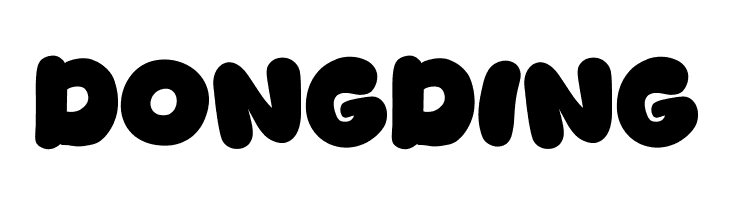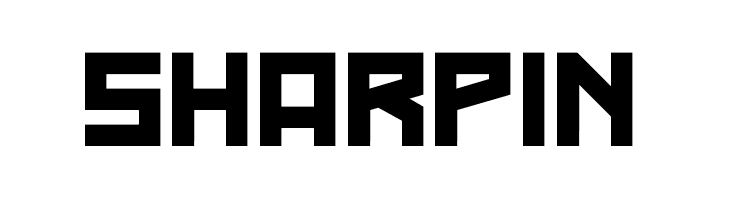
A bold, modern font with unique cuts and strong presence.
A geometric, technical font with clean lines and sharp angles, ideal for architectural and technical designs.
A playful, comic-style handwritten font with smooth, rounded strokes.
An artistic font combining skeletal elements with roses for a bold, decorative look.
A bold, decorative font with a cow pattern design.
An elegant script font with intricate swirls and decorative flourishes.
A distressed serif font with a vintage, textured style.
An elegant script font with fluid, cursive strokes and high contrast.
An elegant and flowing script font with refined cursive letters.
A charming and elegant script font with playful, whimsical curves.
A delicate, flowing script font with thin, graceful lines.
A flowing, cursive script font with elegant, sweeping strokes.
A graceful and elegant script font with flowing, cursive letterforms.
A dynamic, expressive handwritten font with fluid strokes and varying widths.
An elegant script font with flowing lines and intricate swirls, perfect for sophisticated designs.
An elegant script font with flowing, decorative cursive letters.
A bold, dynamic font with unique, playful curves and strong presence.
An elegant script font with flowing, interconnected characters and intricate loops.
A lively, flowing script font with elegant cursive letterforms.
A modern, geometric sans-serif font with clean lines and balanced spacing.
A modern, condensed sans-serif font with uniform stroke width and high readability.
A playful, bold font with rounded, thick strokes and a whimsical touch.
A bold, rugged font with distressed edges and a hand-crafted appearance.
A playful, rounded font with a hand-drawn feel.
A whimsical, hand-drawn font with tall, narrow characters and festive star accents.
A playful, hand-drawn font with tall, narrow letters and a casual style.
A modern, elongated font with sharp angles and a vertical emphasis.
A bold, playful font with star motifs and rounded characters.
A bold, playful font with star motifs in each character.
A bold, geometric font with unique cutouts and rounded edges.